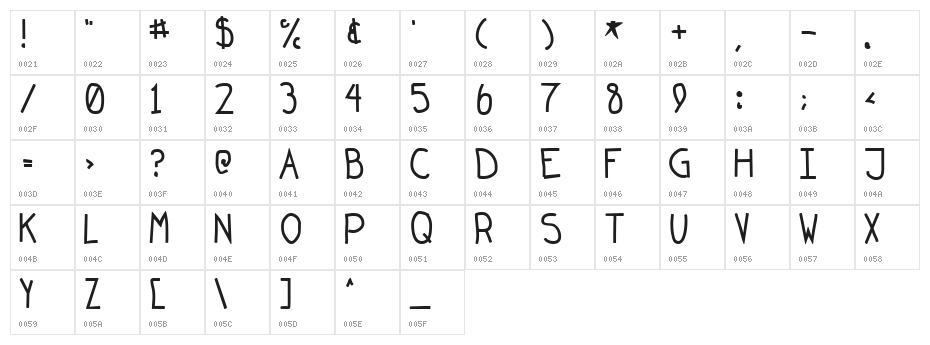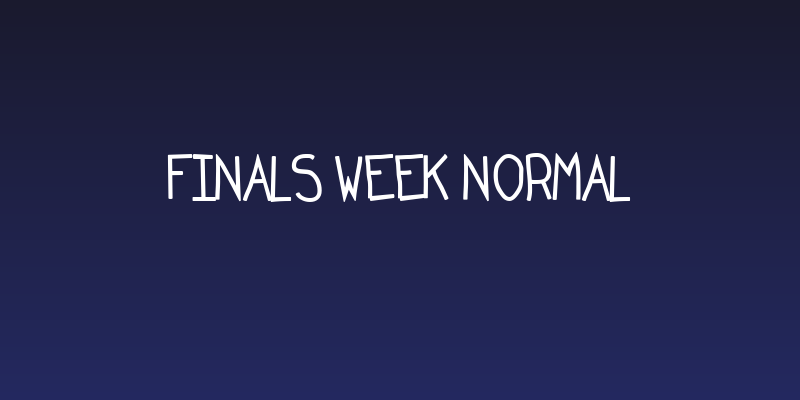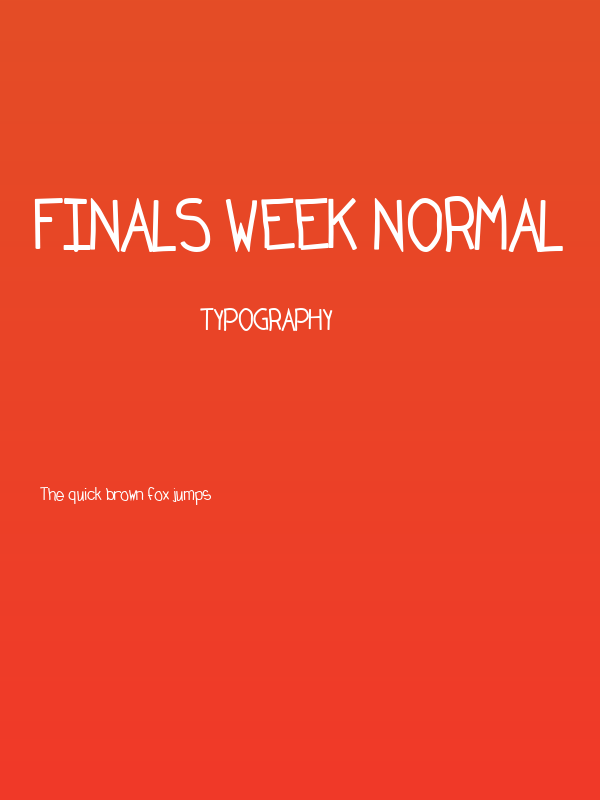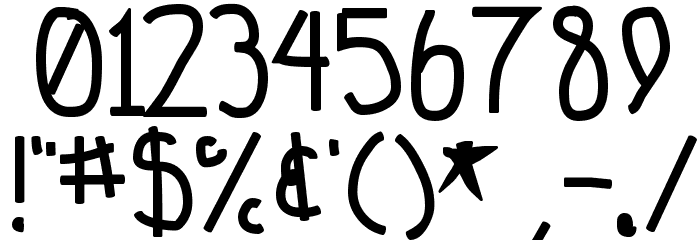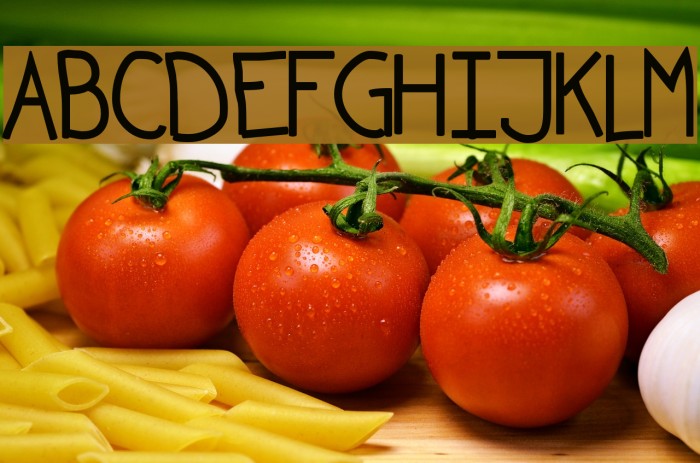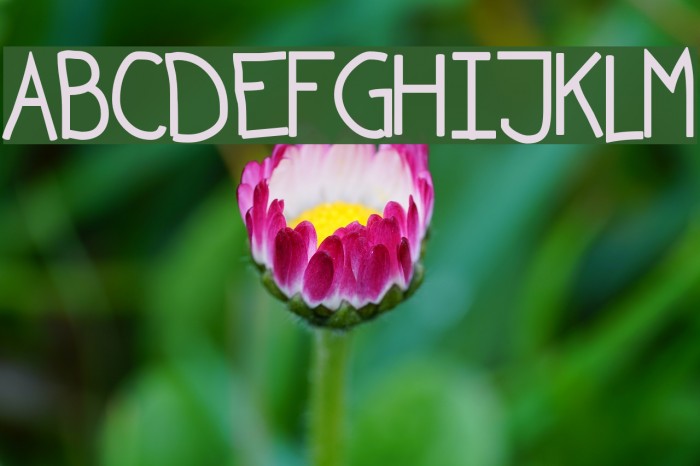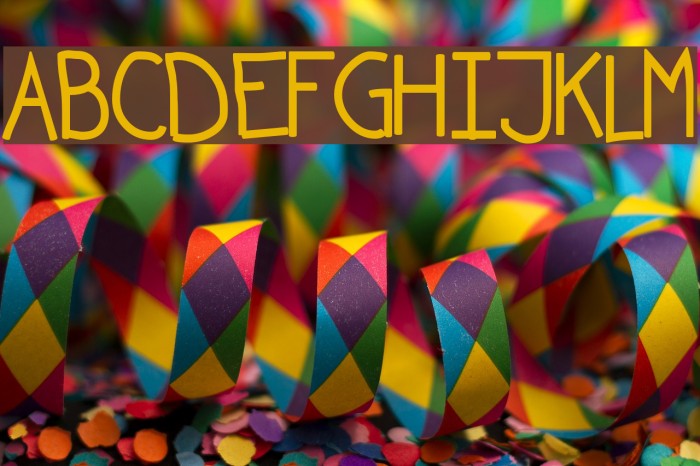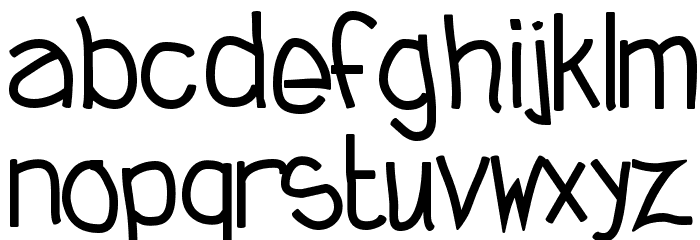
Finals Week Normal Font
Finals Week Normal Description
This font features a playful and informal handwritten style, characterized by its rounded and slightly irregular letterforms. The strokes are consistent in width, giving it a uniform appearance, while the slight tilt and varying heights of the characters add a touch of whimsy. The font maintains a casual and approachable aesthetic, making it suitable for projects that require a friendly and relaxed tone. Its legibility is enhanced by the clear distinction between each character, despite the informal style.
| Use Case | Headlines, Informal text, Branding |
| Proposed Projects | Ideal for children's books, greeting cards, informal invitations, and playful branding materials. |